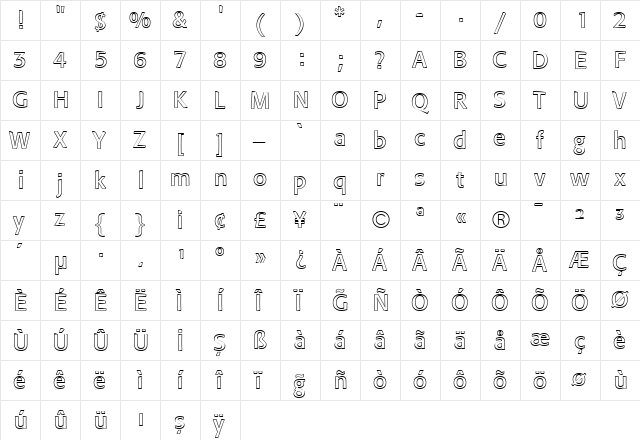
FormataOutline Regular
Design Context for FormataOutline Typeface
FormataOutline is built around its visual character rather than neutral utility — its distinctive forms are designed to make an impression at display sizes.
Font Pairing: Pair with a clean neutral sans-serif for body copy to let FormataOutline's character lead without overwhelming the composition.
Pro Tip: Treat FormataOutline as the centrepiece of your typographic hierarchy. One strong heading set in a decorative face can carry an entire layout.